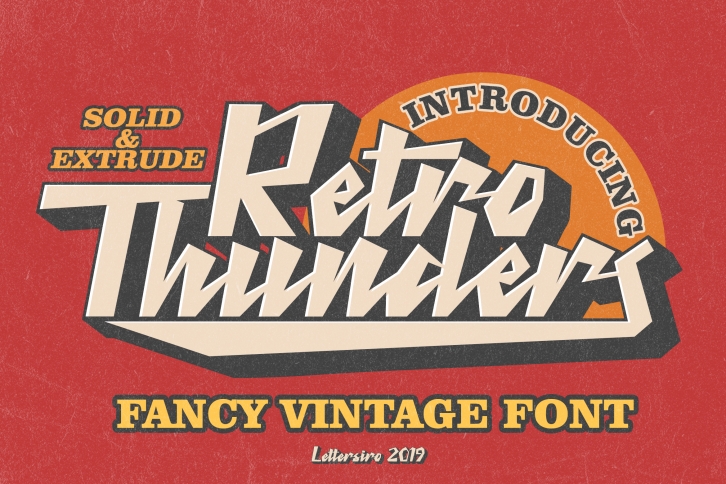
Retro Thunders - Retro Font Download
Retro Thunders is a trendy and unique font with an authentic style. It was designed by lettersiro co and it's a great choice for creative people who need such a font. It was released on February 16, 2019 and the file size is 13.25 MB. Retro Thunders will add an organic vibe to any design idea!